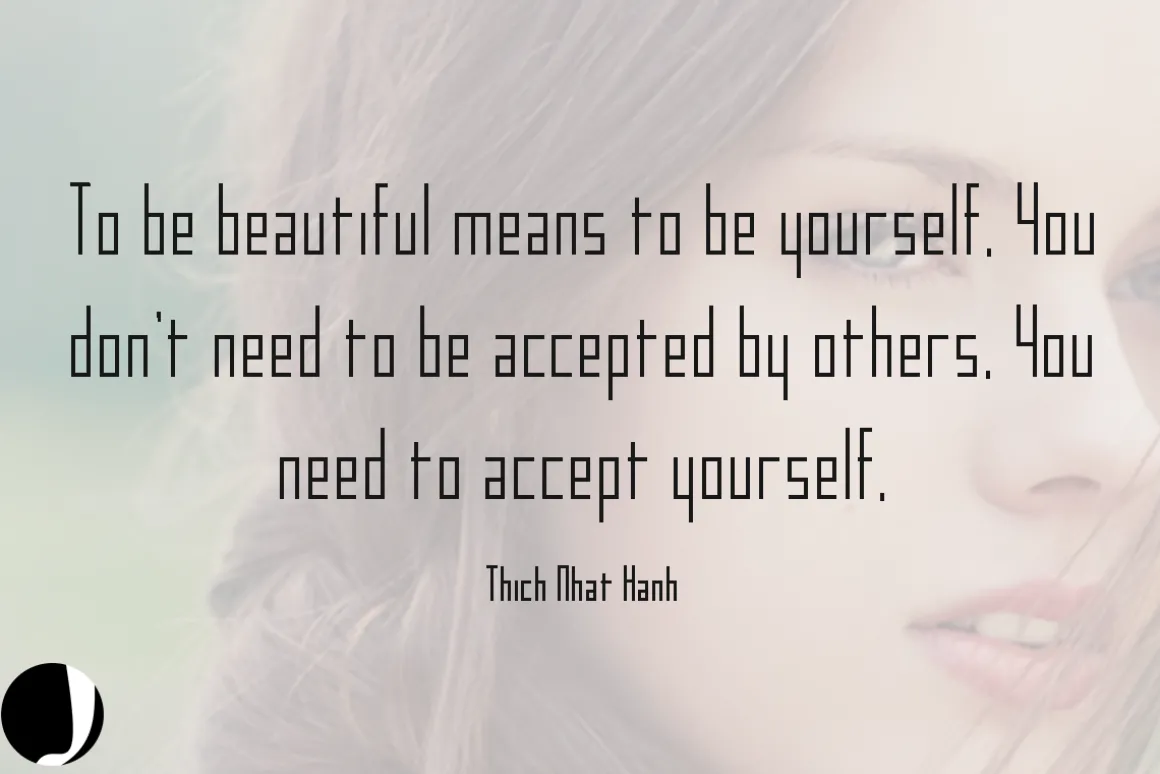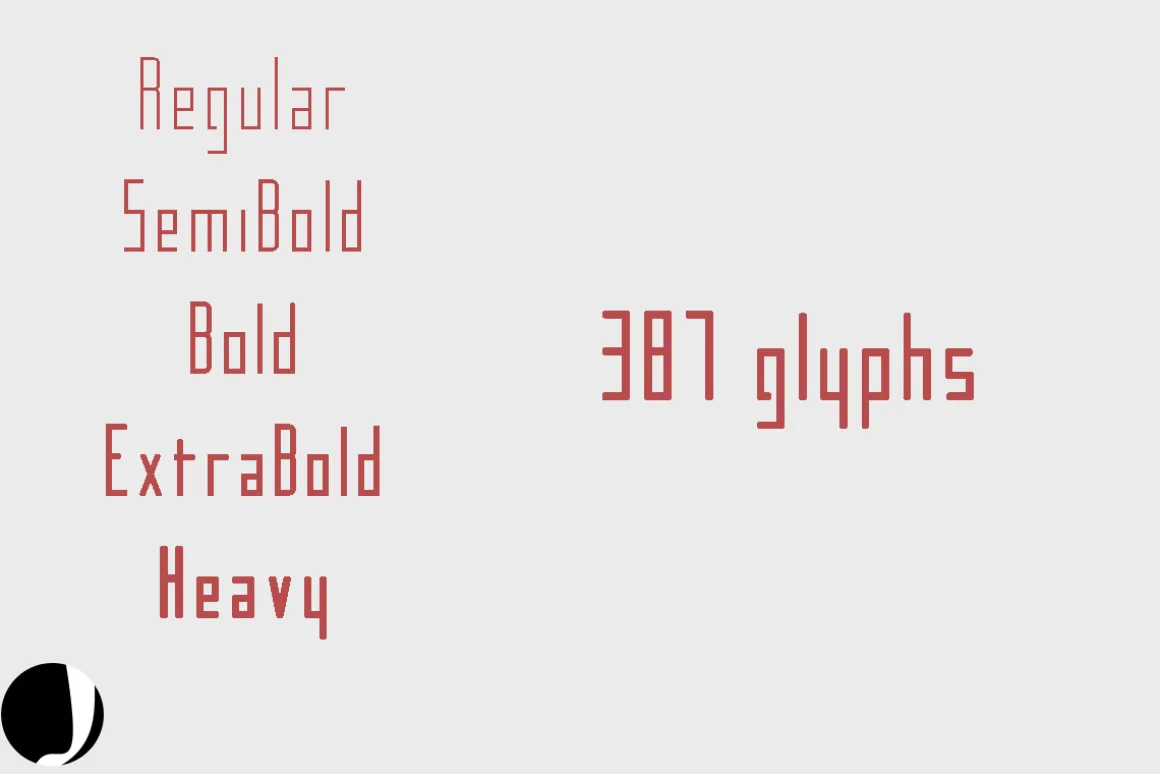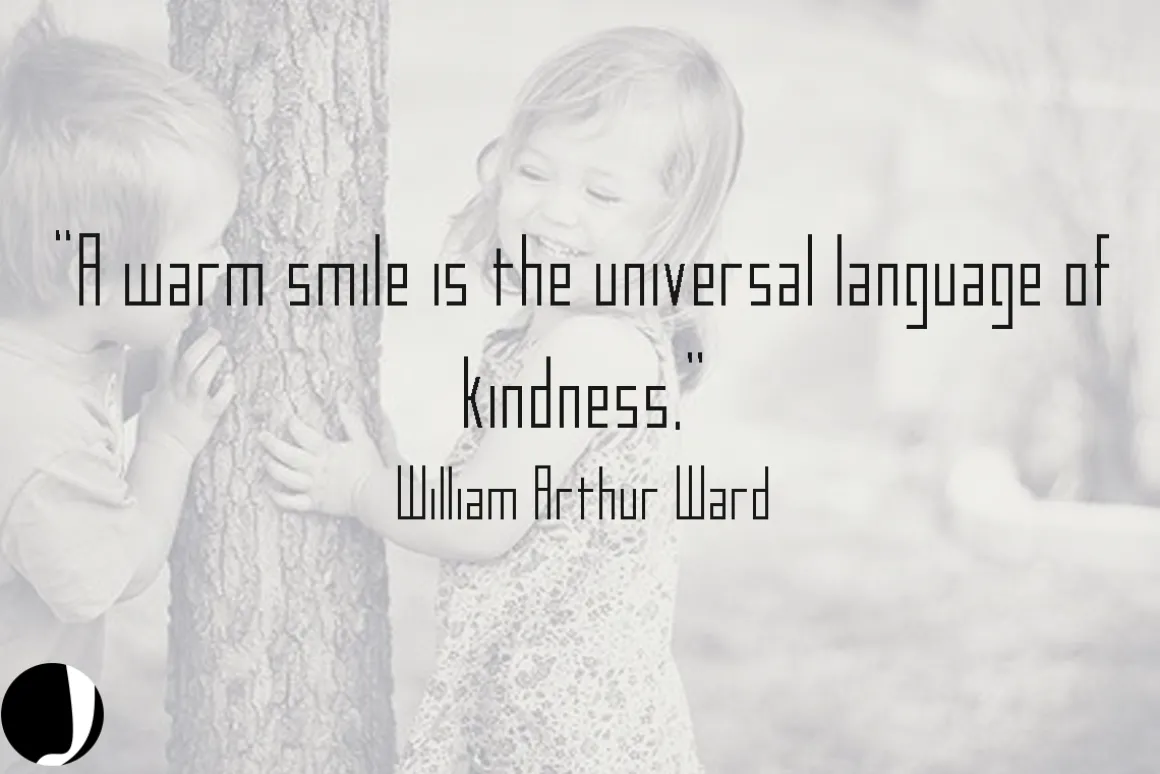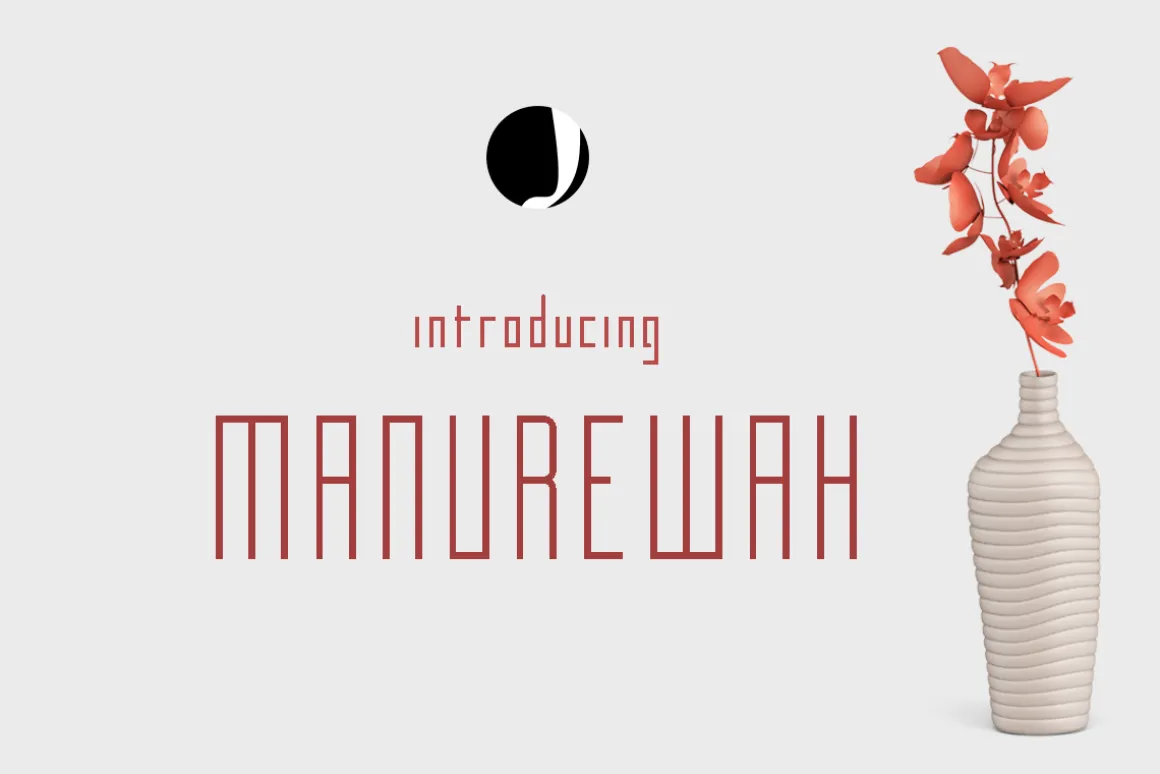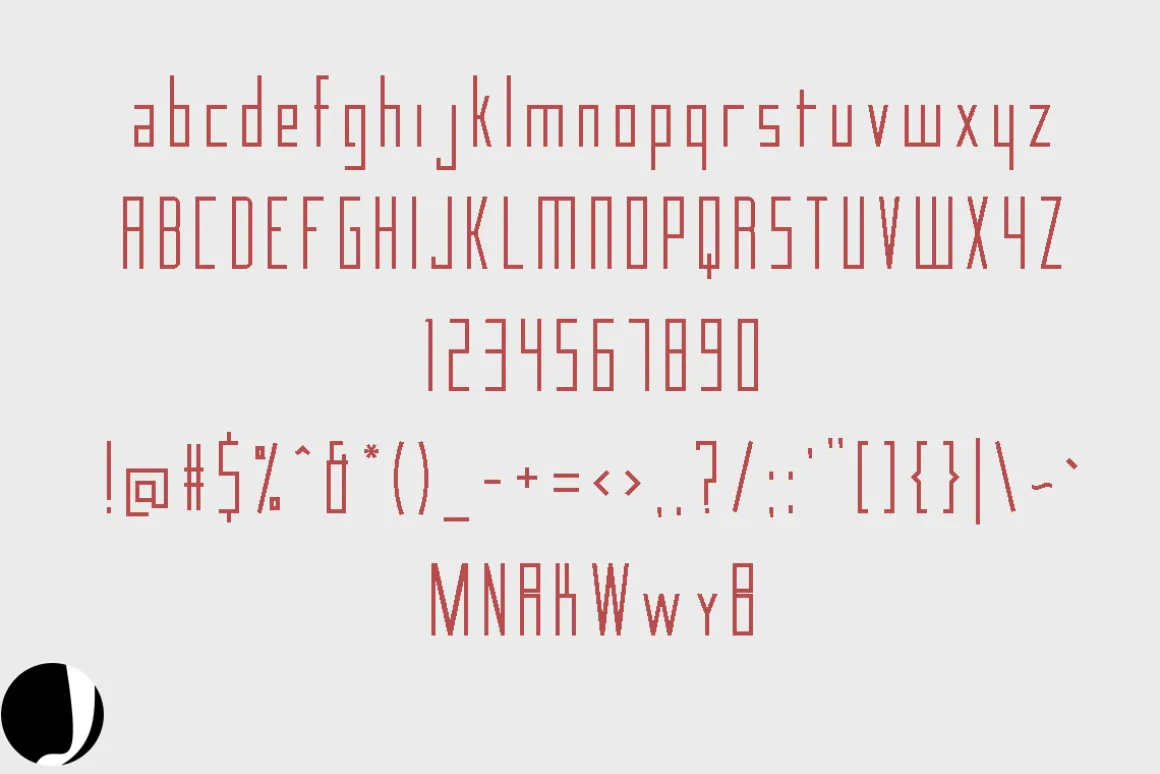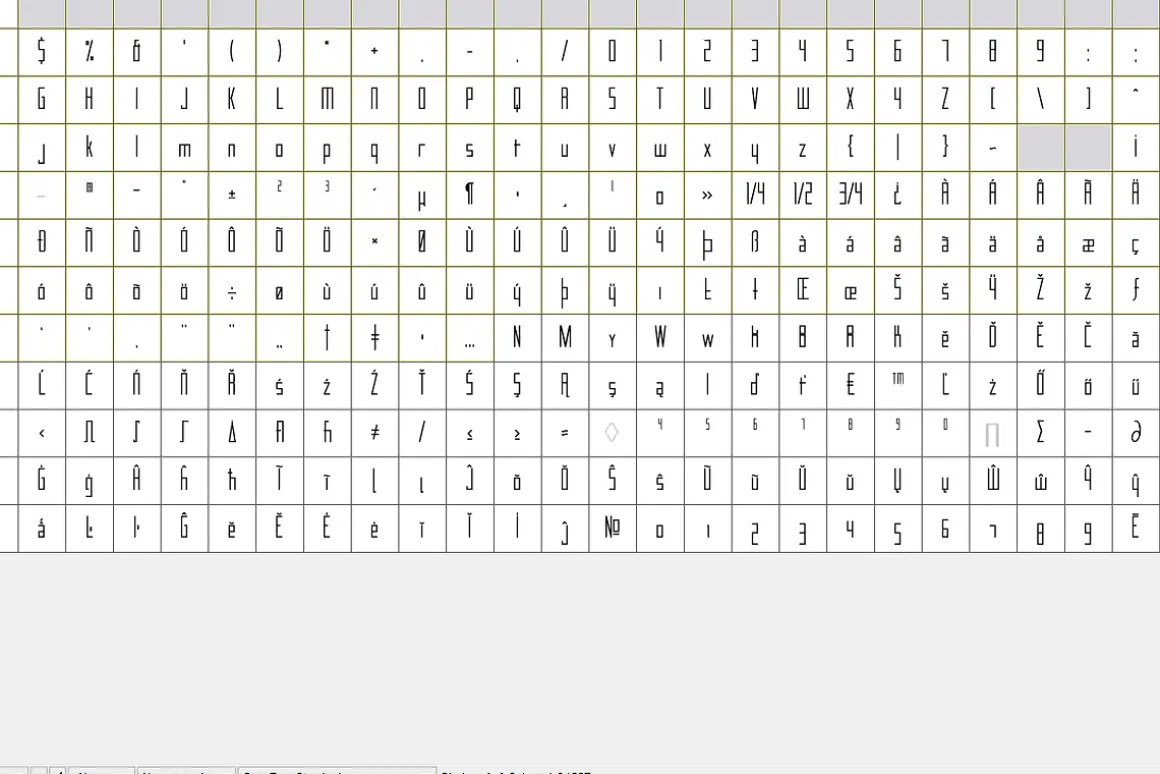
Here is a beautiful typeface MANUREWAH …….wow….crafted beautifully, gives a clean look to your new project……contains more than 380 glyphs, supporting many languages….We proudly introduce with 50% off price…..You will get 5 weights of this beautiful font,